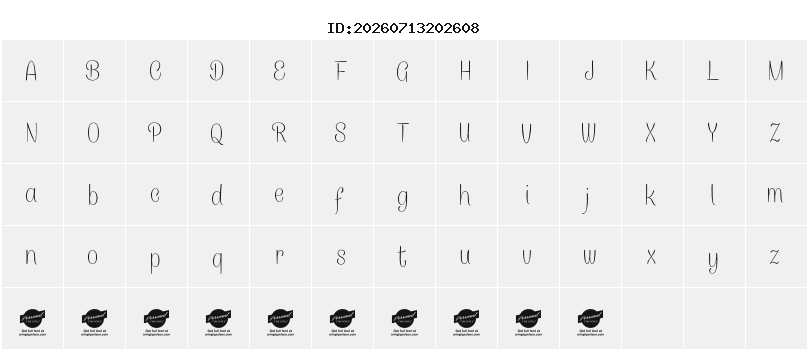
Caneletter Sans Thin Personal Preview
• Font Name: Caneletter Sans Thin Personal
• Designer: Måns Grebäck
• Manufacturer: Måns Grebäck
About Caneletter Sans Thin Personal.otf
Caneletter Sans Thin Personal.otf is a modern, elegant sans-serif font designed for ultimate readability and visual harmony. Perfect for branding, headlines, web design, and print materials.